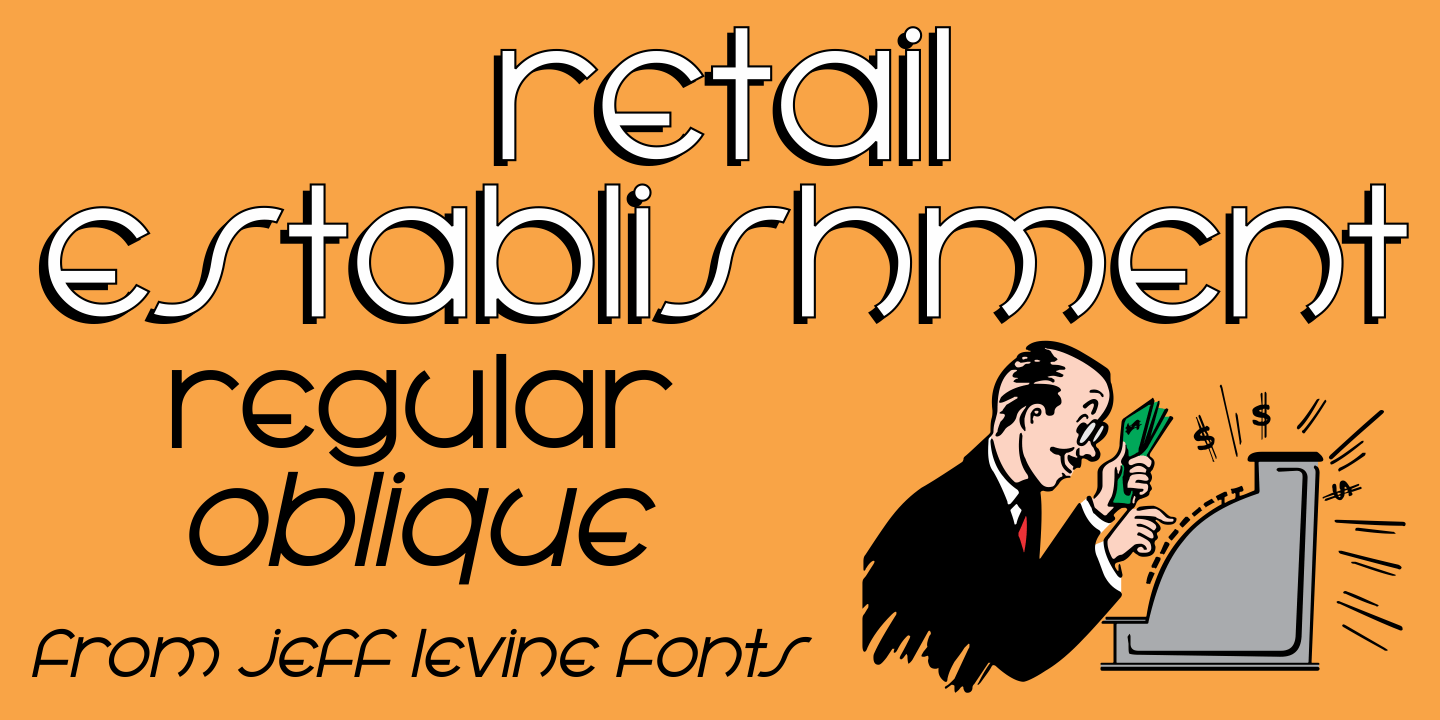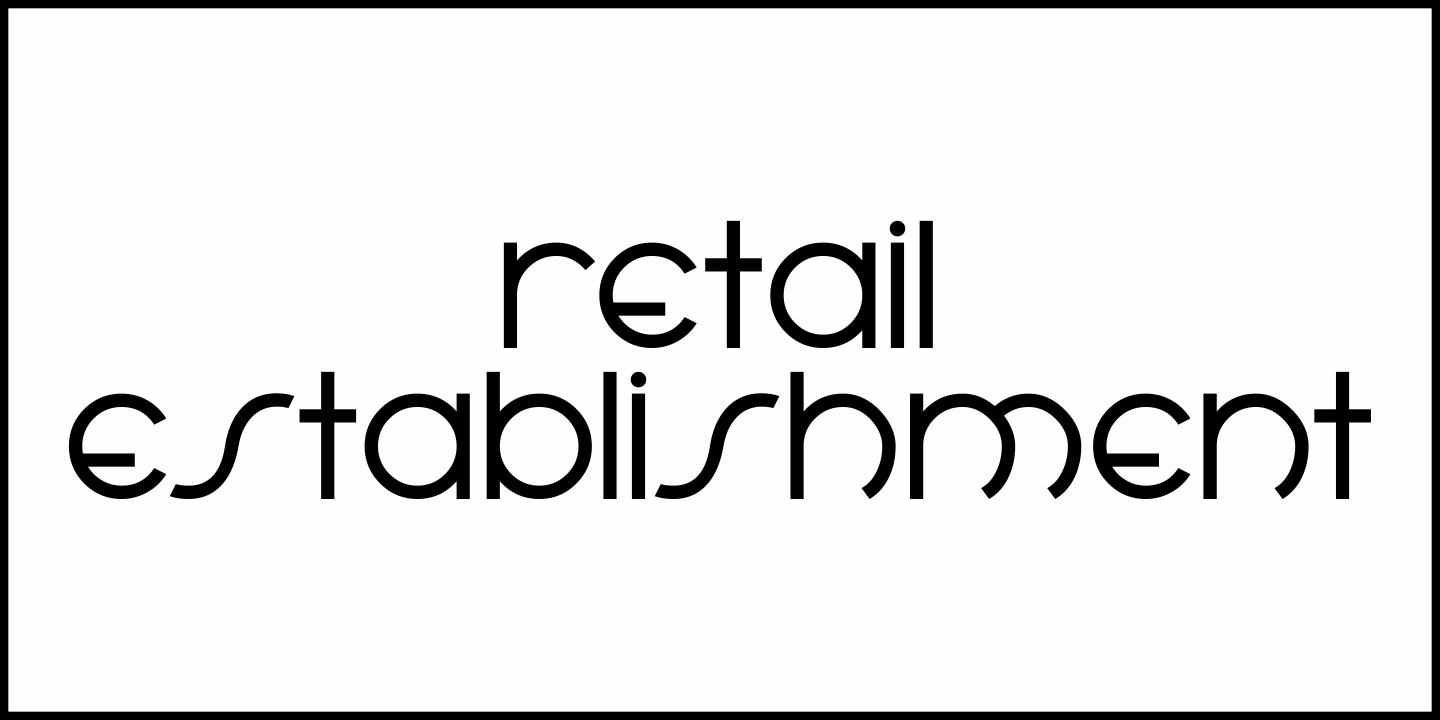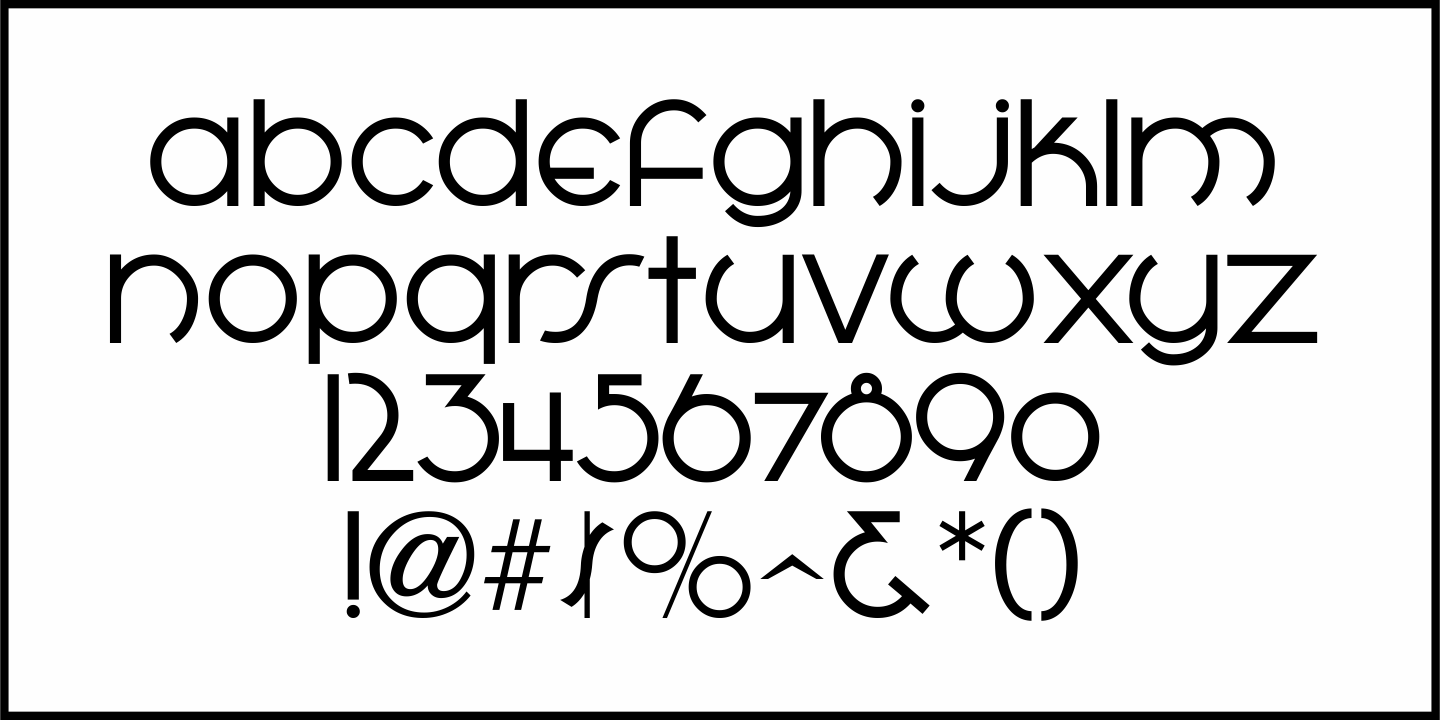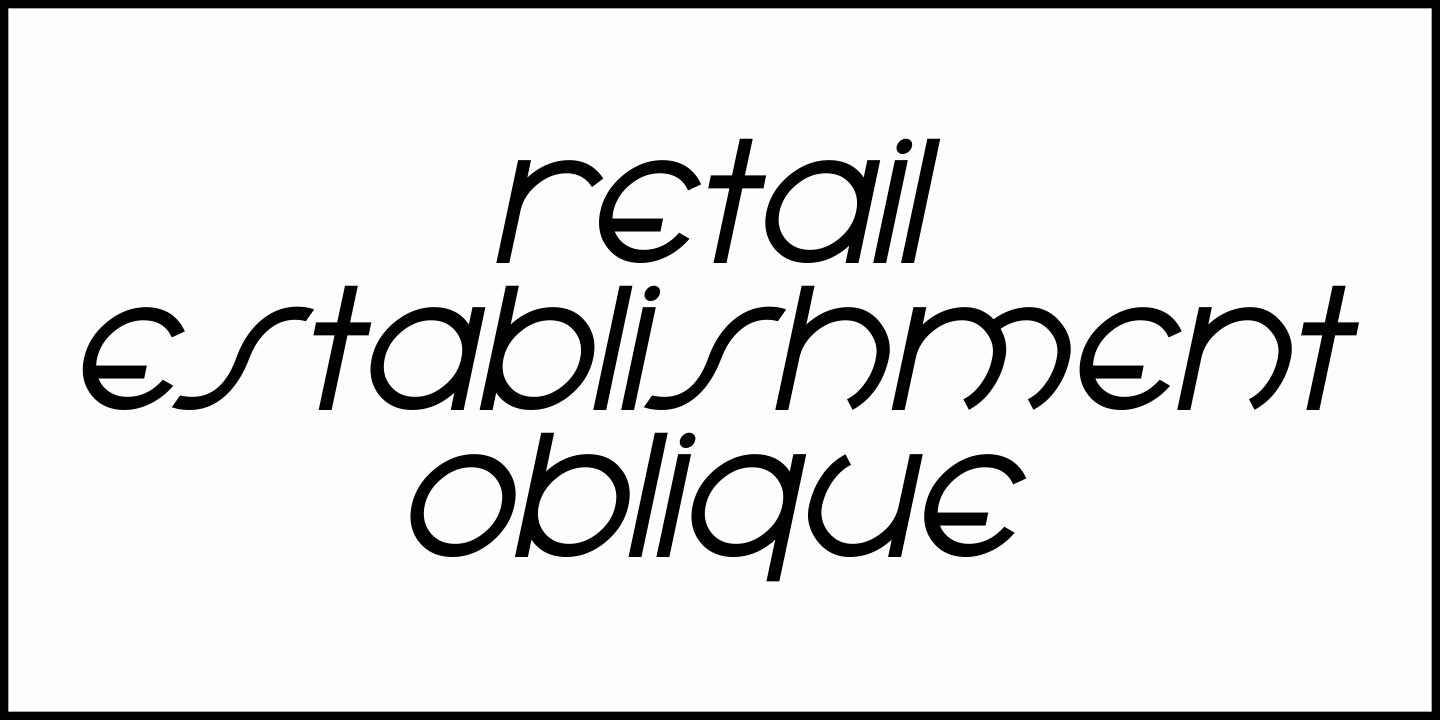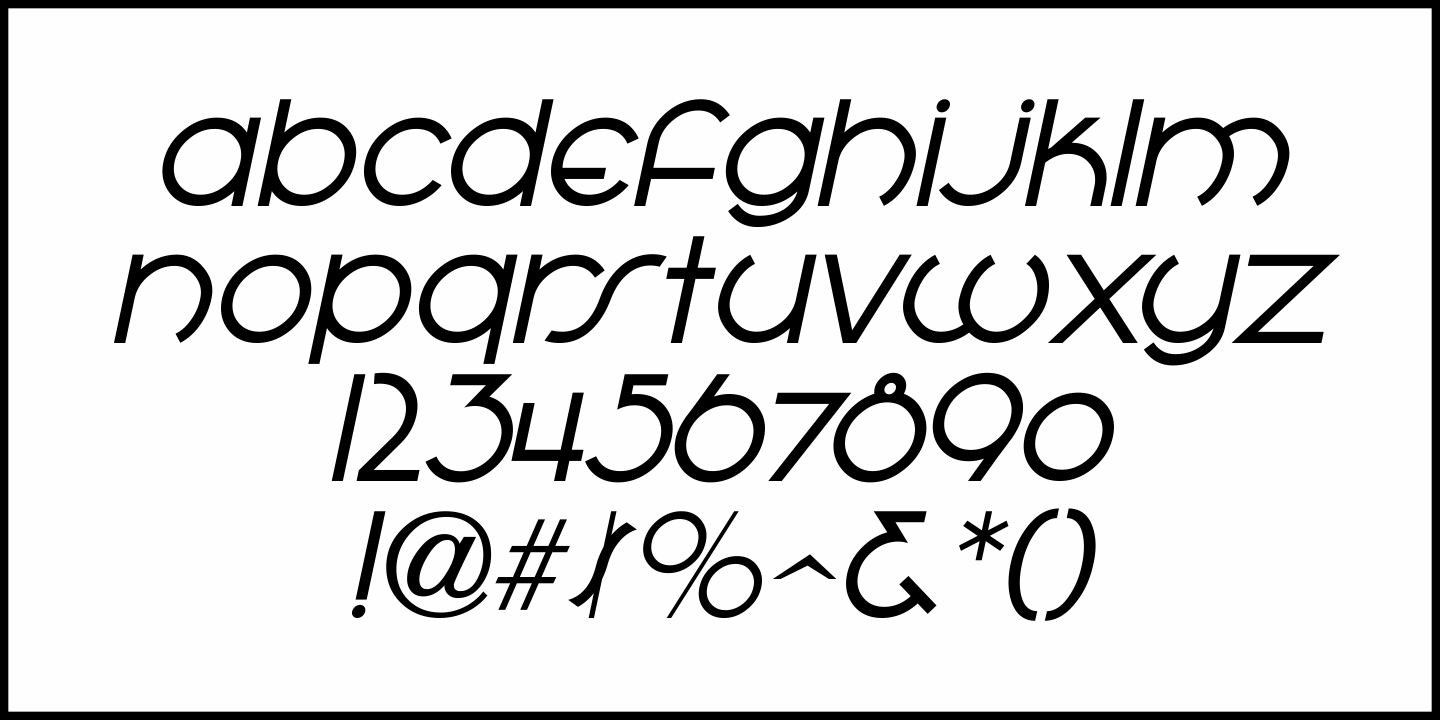
Retail Establishment
The 1935 catalog for Vitrolite (a brand of pigmented structural glass) featured artist renderings of how the glass could be applied to business exteriors.
One of the lettering styles used in these examples was an Art Deco lower case. This design has been turned into a digital typeface called Retail Establishment JNL and is available in both regular and oblique versions.
Retail Establishment by Jeff Levine Fonts